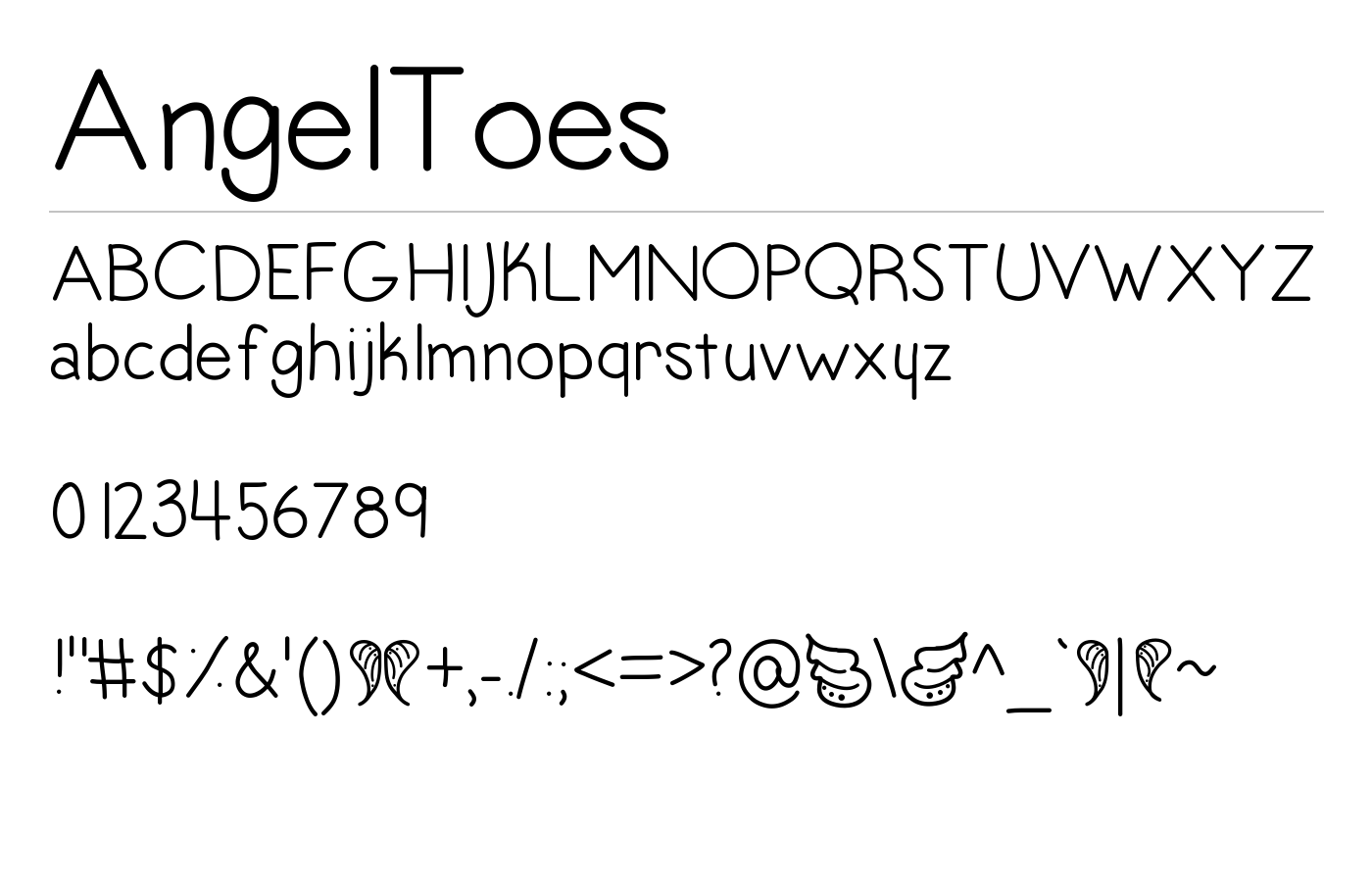
AngelToes is a playful, handwritten-style sans serif font with a light weight and a casual, airy feel. Its tall, narrow letterforms feature gentle curves and rounded strokes, creating a friendly and informal vibe that works well for children's content, whimsical branding, or creative projects. With its unique, slightly quirky characters and clear readability, this font is great for invitations, greeting cards, or any design seeking a lighthearted and approachable look.
AngelToes Font
About AngelToes Font